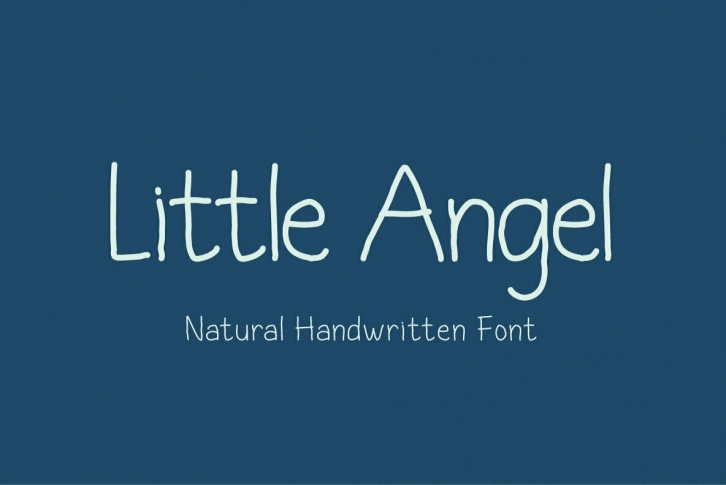
Little Angel is a handwritten Sans Serif, every single letter has been carefully crafted to make your text looks beautiful. it's perfect for logos, name card, magazine layouts, invitations, headers, or even large-scale artwork.